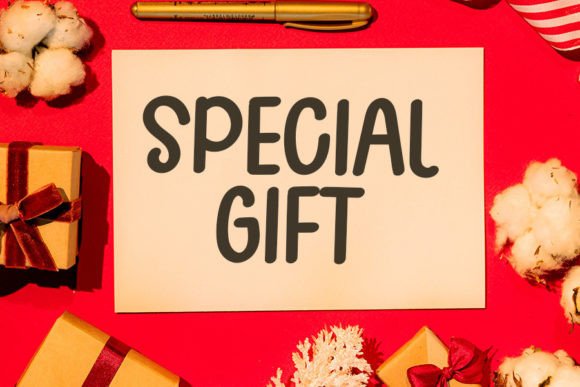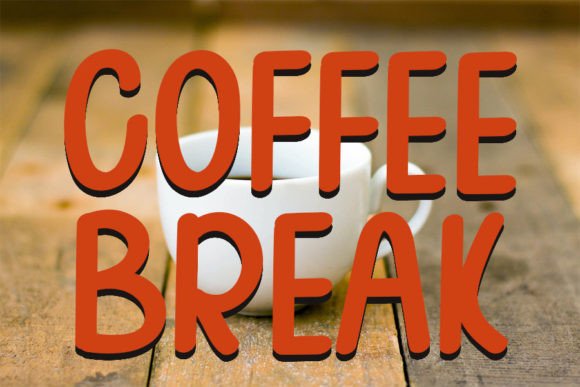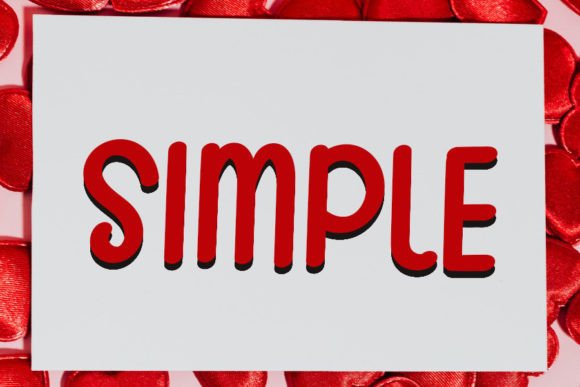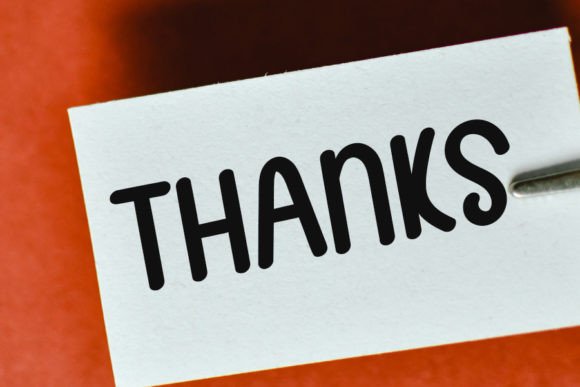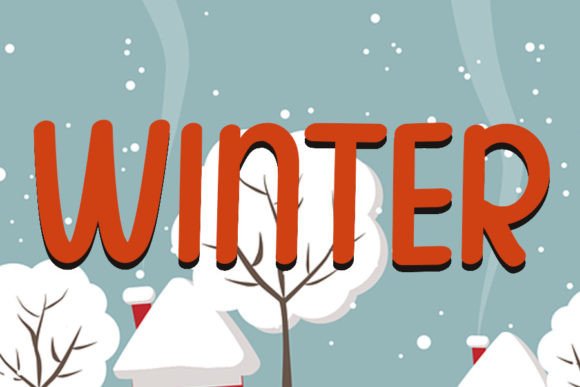
Smooth Quality Font
About Smooth Quality Font
Smooth Quality font is a lovely handwritten typeface designed to bring balance and beauty to your creative projects. With strokes that are neither too thin nor too thick, this font strikes a perfect harmony, making it a versatile choice for a wide range of design applications. Whether you’re crafting logos, greeting cards, or branding materials, Smooth Quality font adds an elegant and natural touch that elevates every design.
Balanced and Versatile Design
One of the key features of Smooth Quality font is its carefully crafted balance. The strokes vary smoothly, providing visual interest without overpowering the message. This makes the font easy to read while maintaining its handcrafted charm. You can confidently use Smooth Quality font in both print and digital media, knowing it will enhance your work’s appeal.
Ideal Uses for Smooth Quality Font
This font works wonderfully for:
• Logo and brand identity
• Wedding and event invitations
• Greeting cards and personal stationery
• Social media graphics and marketing materials
• Packaging and product labels
Smooth Qualityfont is especially suitable for projects that need a soft, approachable, and elegant feel. Its natural flow and clear structure make it an excellent choice for delivering your message with style.